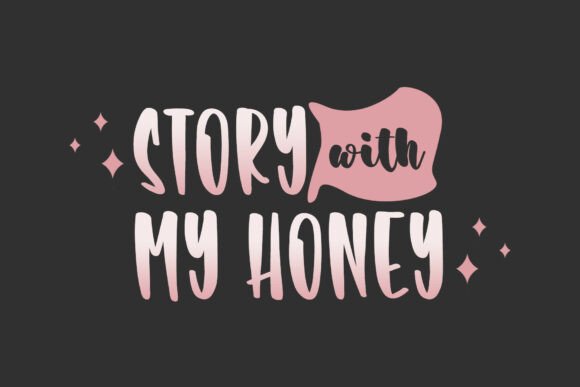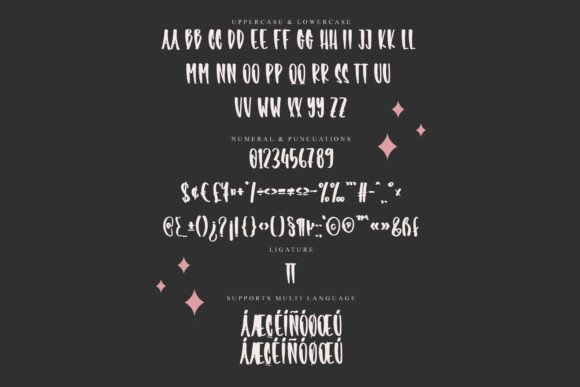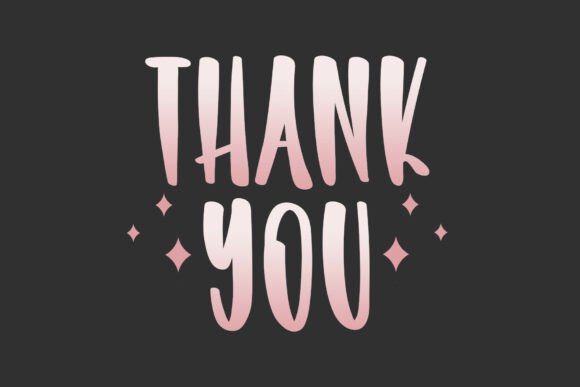
The Magical World of Cupid Preppy Font
Have you ever been in the middle of a design project, and suddenly, you’re stuck on finding the perfect font? I recall a particularly frustrating experience while working on a mystical-themed branding project. My client wanted a font that exuded elegance, mystery, and a touch of whimsy. After hours of scouring through font libraries, I stumbled upon Cupid Preppy – a captivating display font that instantly resonated with my design vision.
An Honest Review of Cupid Preppy
Cupid Preppy is a charming font that combines strength and elegance, making it perfect for bold and eye-catching designs. Here’s what I love about it:
- ✨ Unique letterforms that add a touch of mystery to any project
- ✅ Elegant and sophisticated, perfect for high-end branding
- 💫 Versatile and adaptable, suitable for various design applications
- 🎨 Highly customizable with OpenType features and glyphs
While Cupid Preppy is an exceptional font, it’s not without its quirks:
- 🤔 Some characters may require manual kerning for optimal spacing
- ⚠️ Limited availability of certain stylistic alternates
The Designer Inspiration Behind Cupid Preppy
Cupid Preppy was inspired by the mythological figure of Cupid, the mischievous god of love and desire. The font’s designer aimed to capture the essence of Cupid’s charm and mystique, infusing the font with a sense of wonder and sophistication. By combining elegant lines with unique letterforms, the designer created a font that exudes confidence and elegance.
| Font Name | Cupid Preppy Font |
| Author | YanStudio |
Q: What type of projects is Cupid Preppy best suited for?
A: Cupid Preppy is perfect for bold and eye-catching designs, such as luxury branding, packaging design, and high-end advertising.
Q: Is Cupid Preppy a versatile font?
A: Yes, Cupid Preppy is a versatile font that can be adapted to various design applications, from elegant and sophisticated to bold and whimsical.